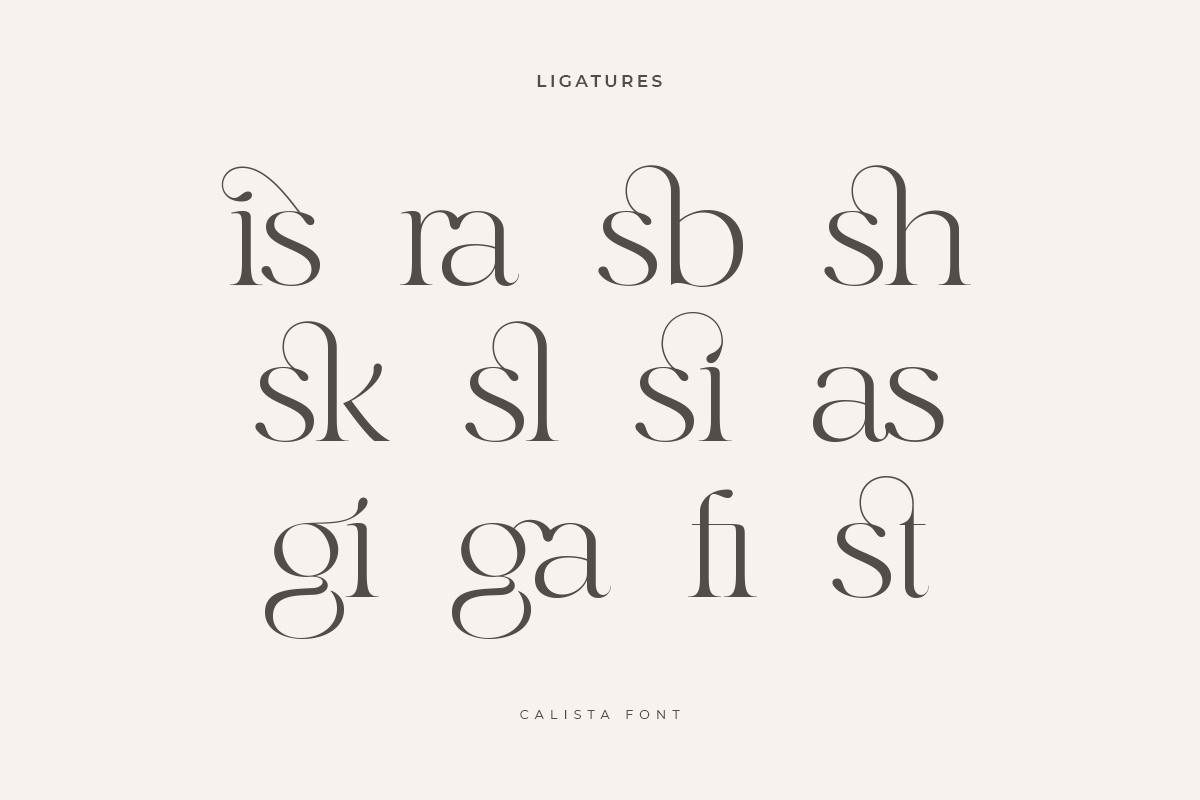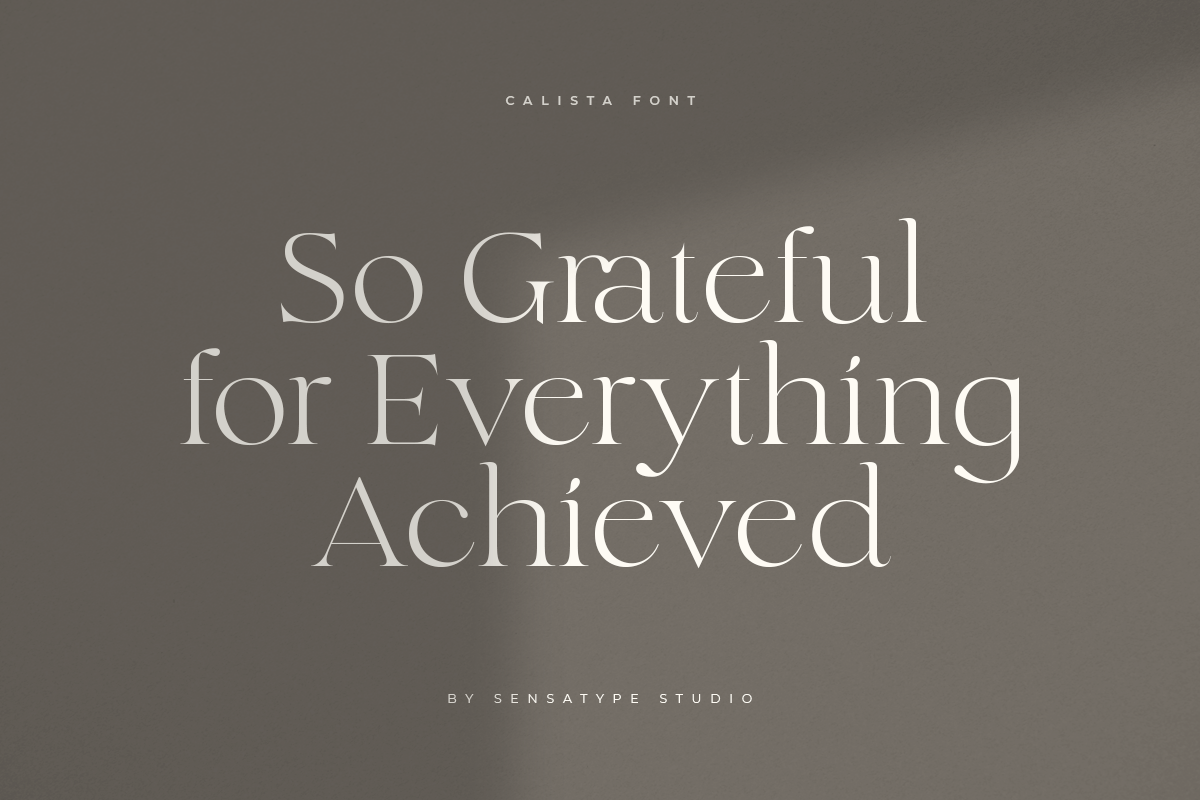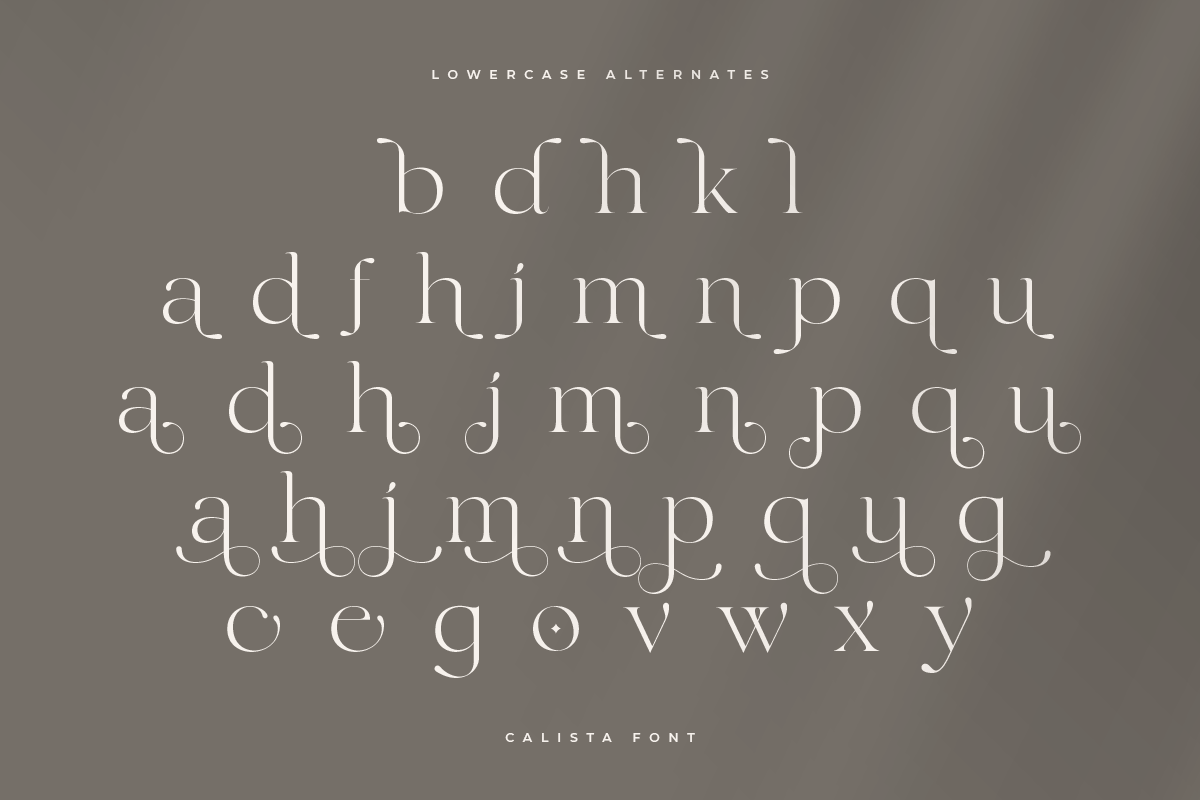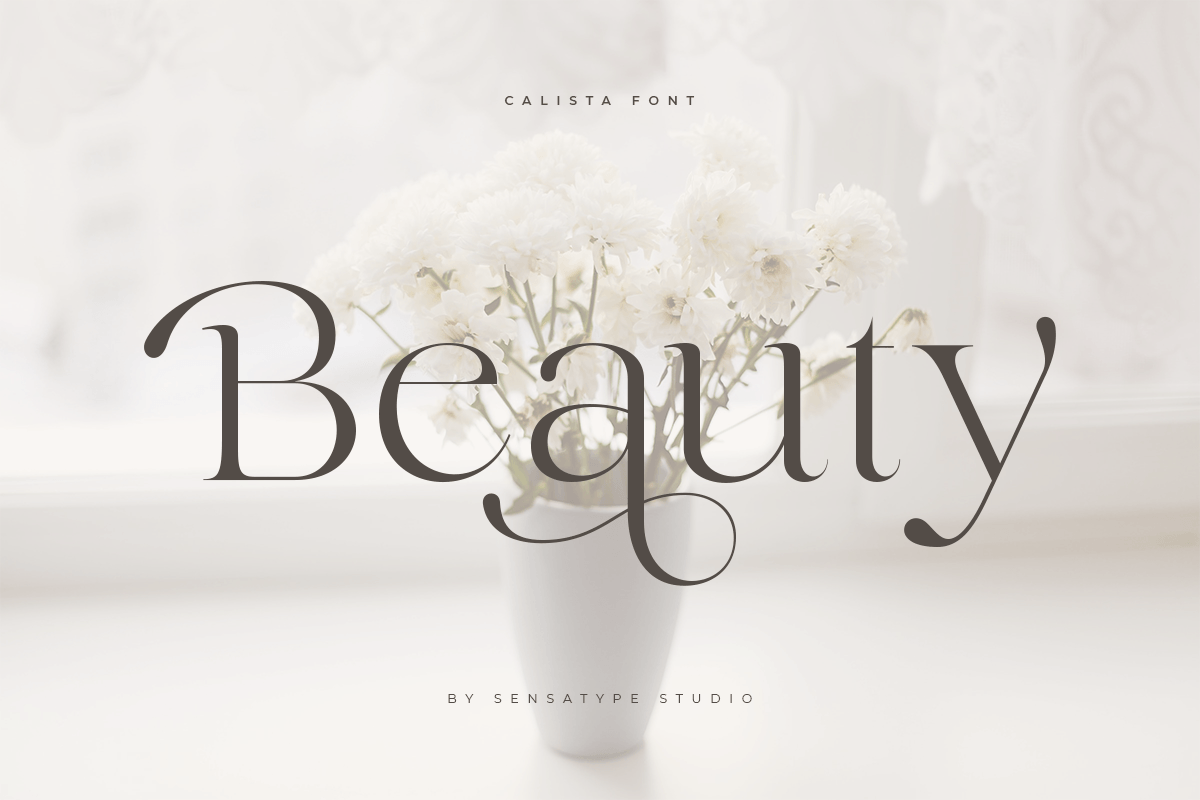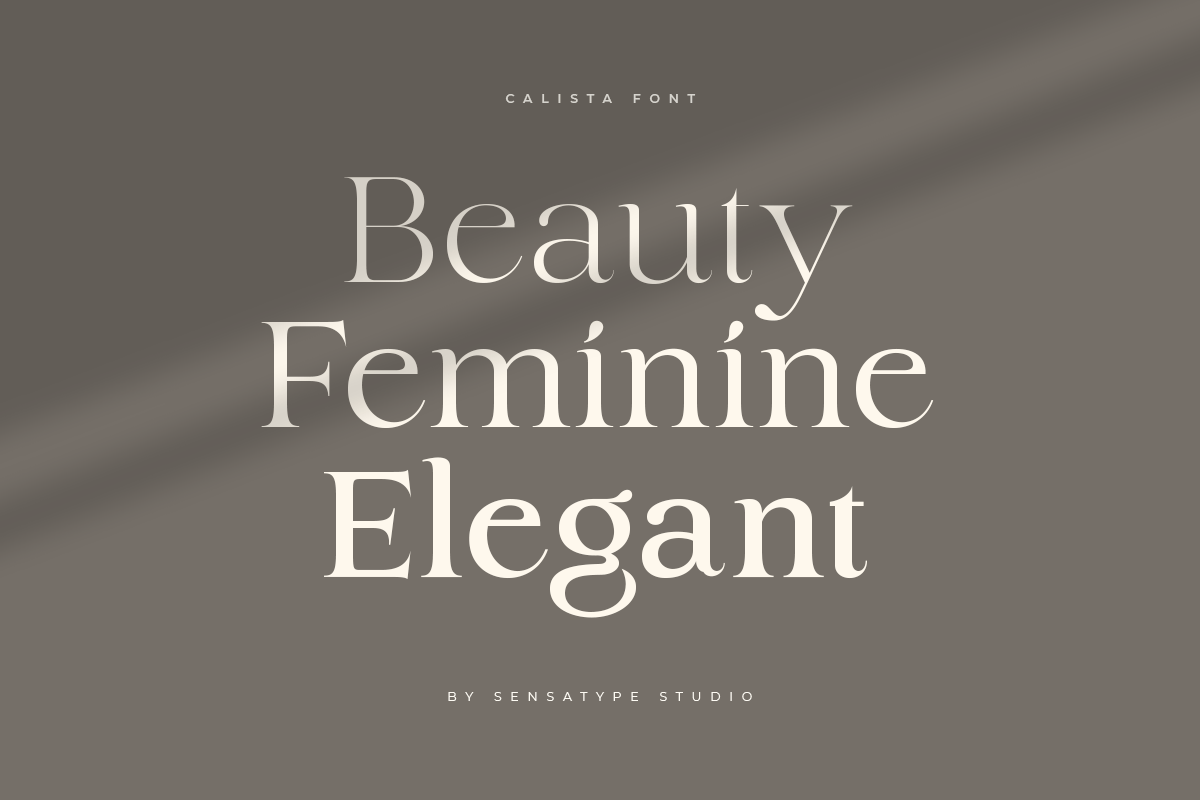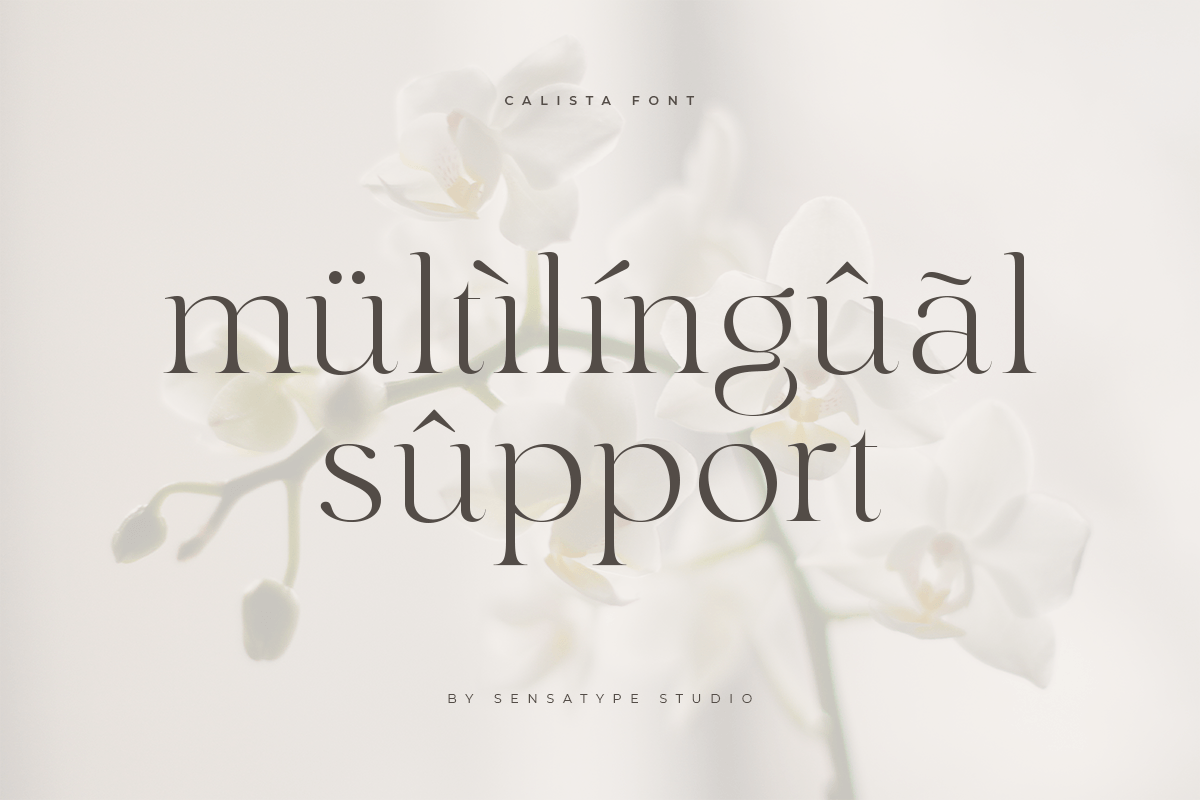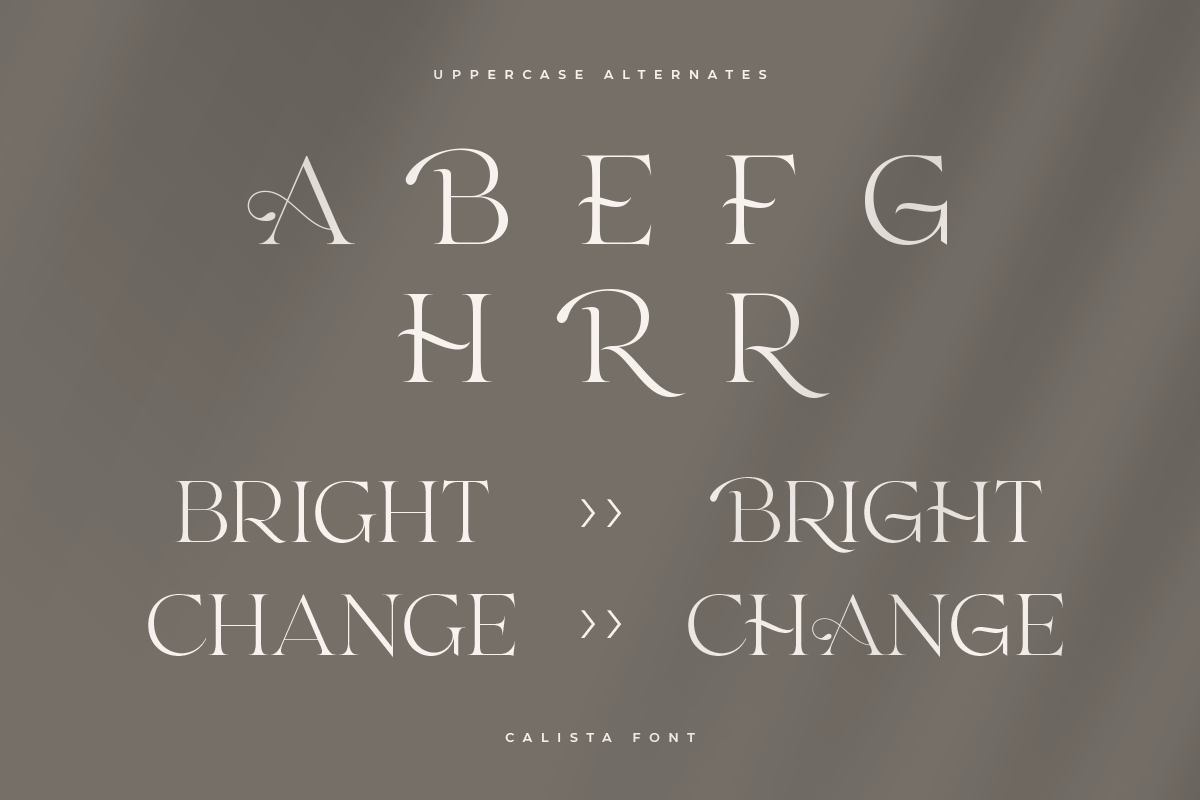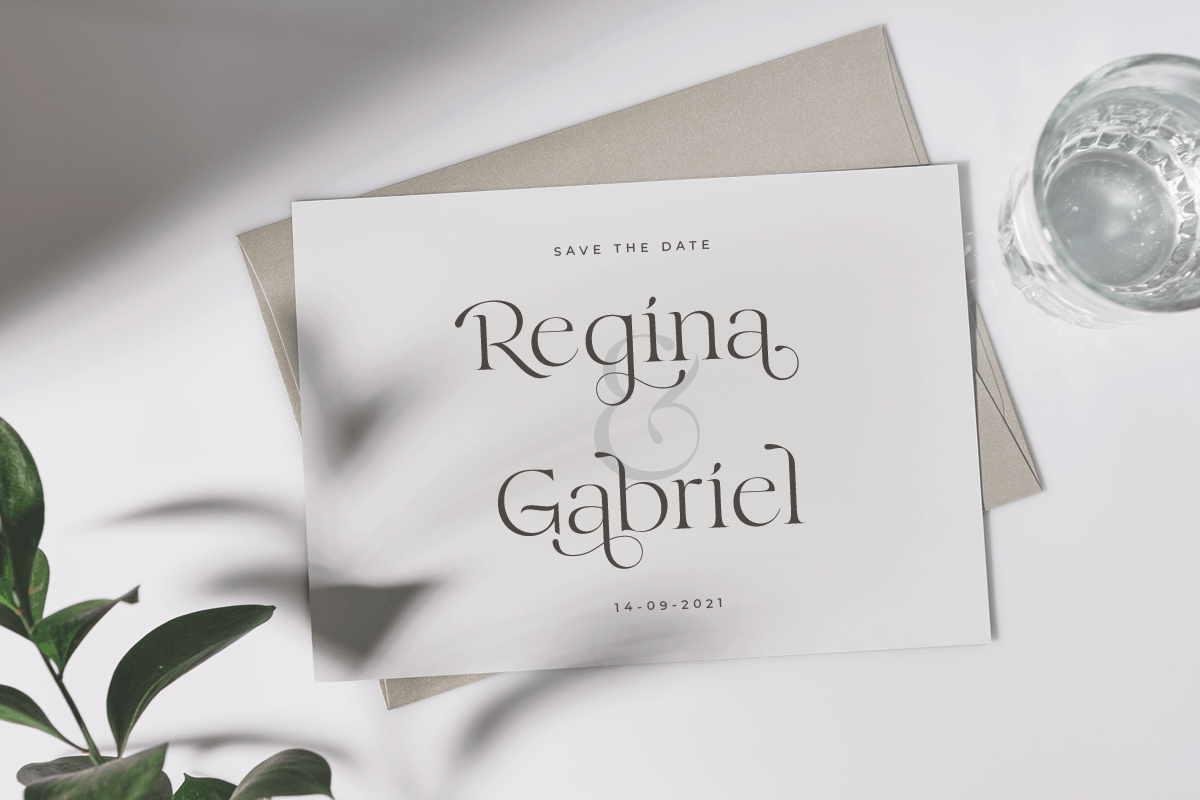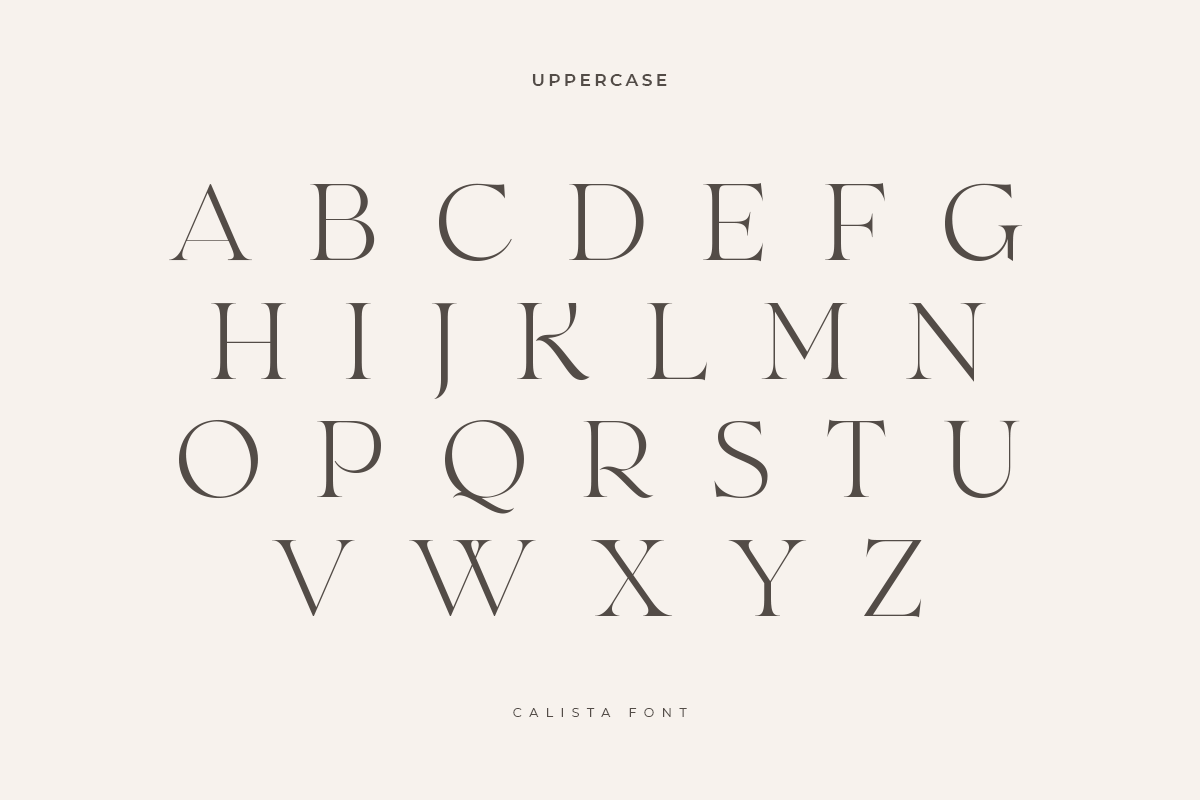
Calista - Classy Elegant Font
Calista is a classy elegant font crafted to bring sophistication and charm to your creative projects. Ideal for branding, logos, weddings, invitations, social media, and editorial designs, it combines timeless elegance with modern aesthetics.
With refined and legible letterforms, Calista ensures a polished and professional look for both digital and print applications.
Calista – Classy Elegant Font Features
• Elegant and refined character set
• OpenType features for extra versatility
• Multilingual Support